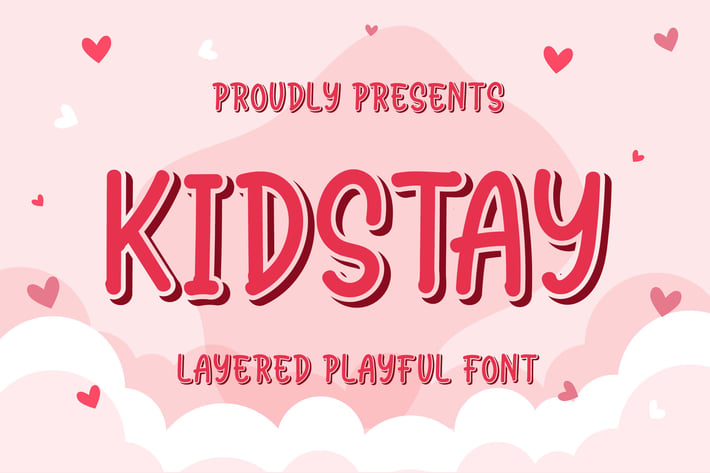
Kidstay - Layered Playful Font
Introducing of our new product the name is Kidstay Layered Playful Font. Kidstay inspired by kids style this font is a fun theme very good for kids logo, kids typography, poster, logotype and etc